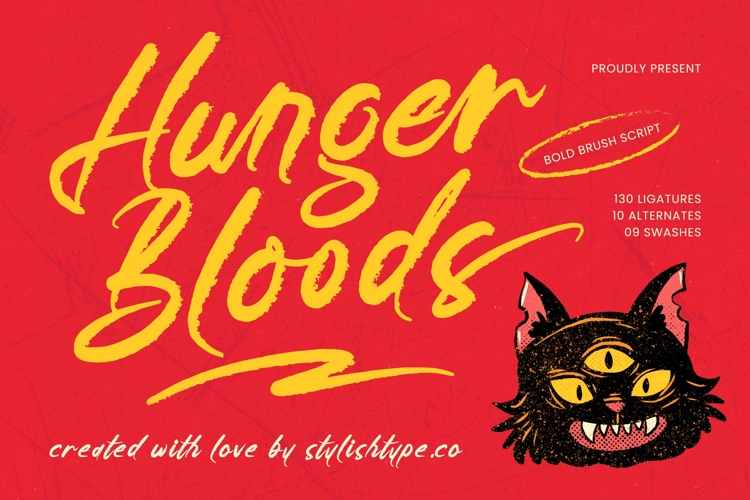
Hunger Bloods - Bold Brush Script
Hunger Bloods - Bold Brush Script. This powerful typeface is a stunning representation of authentic hand-lettering, capturing the texture and fluidity of a heavily loaded paintbrush. Its strokes are thick, dynamic, and unapologetically dominant, creating an instant sense of urgency and high-impact visual communication. This is the optimal choice for projects demanding an undeniable, aggressive presence and unmatched texture.